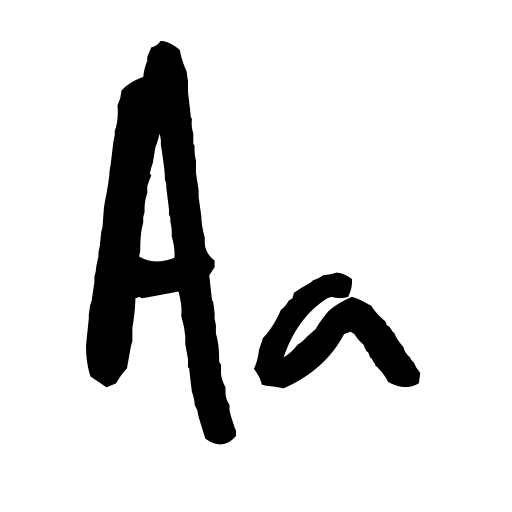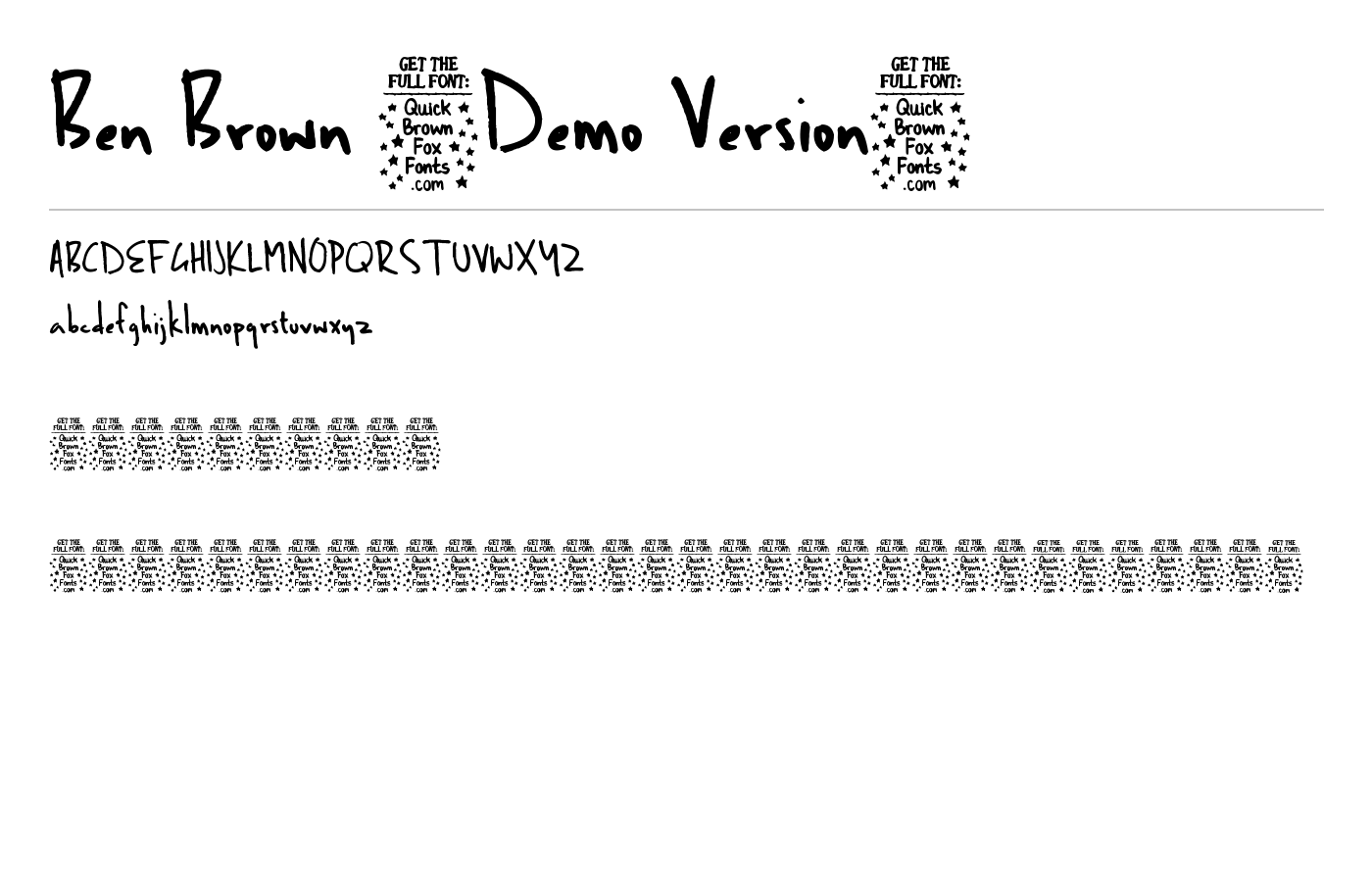
Ben Brown is a casual, handwritten sans serif font with an informal, friendly vibe. Its thin, uneven strokes and playful letterforms give it a quirky, approachable personality, making it ideal for creative projects, personal branding, or any design seeking a hand-drawn, authentic touch. This font works best in headlines, logos, or short texts where a relaxed and unique style is desired.
Ben Brown (Demo Version) Font
About Ben Brown (Demo Version) Font
| Font family | Ben Brown (Demo Version) Font |
| Designer | Lauren C. Brown |